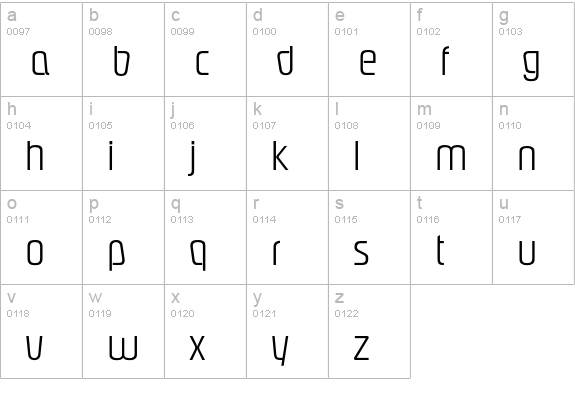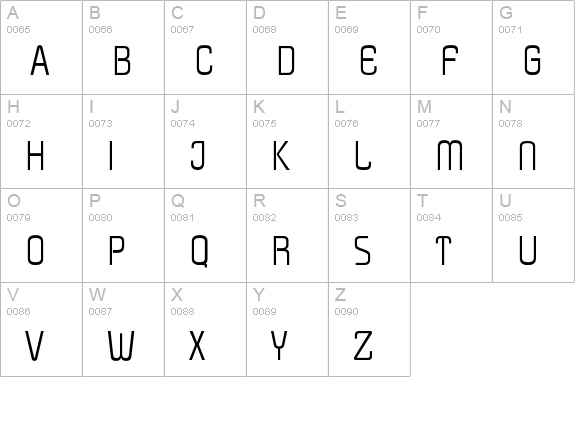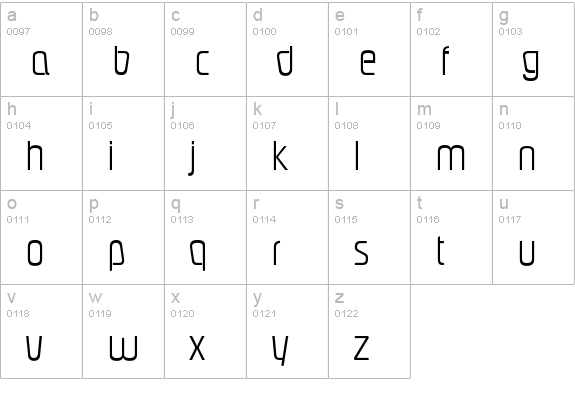
Pasadena-Light Font Details
Pasadena-Light is a refined, elegant variant in the Pasadena typeface family \xE2\x80\x94 well suited to elegant body text, refined sub-headings, and luxury branding.
Pasadena-Light, a font that effortlessly exudes elegance and sophistication, is the epitome of refined typography. This exquisite typeface seamlessly combines graceful curves and sleek lines, resulting in a harmonious balance that is visually pleasing to the eye. With its slender strokes and delicate proportions, Pasadena-Light possesses a timeless beauty that transcends trends and fads. Its gentle weight and airy appearance make it the perfect choice for projects that require a touch of subtlety and finesse. Whether it is used for headlines, body text, or branding materials, this font effortlessly adds a touch of sophistication to any design. One of the best features of Pasadena-Light is that it is freely available to download at FontsMarket.com. This means that designers and creatives from all walks of life can easily access this stunning font without any hassle. Its availability as a free download allows for greater flexibility and accessibility, making it an excellent choice for both personal and commercial projects. The versatility of Pasadena-Light knows no bounds. Its clean and refined aesthetic makes it a suitable choice for a wide range of applications, from wedding invitations and luxury branding to editorial designs and website layouts. Its legibility and clarity ensure that your message is conveyed effectively, while its subtle elegance adds a touch of sophistication to your project. Embrace the beauty and versatility of Pasadena-Light, a font that effortlessly captures the essence of refined typography. Download it for free at FontsMarket.com and elevate your designs to new heights of elegance and sophistication.